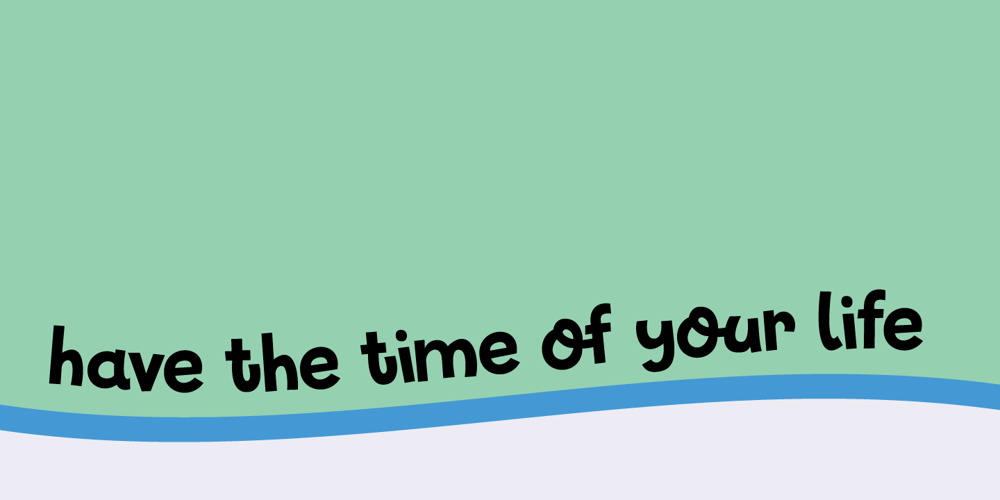
Glitter Candy
Glitter Candy font
Glitter Candy Font Family was designed by David Kerkhoff and published by Hanoded. Glitter Candy contains 1 styles and family package options. Glitter Candy is a happy font: rounded, fat and cute. Ideal for children’s book covers, posters and product packaging.